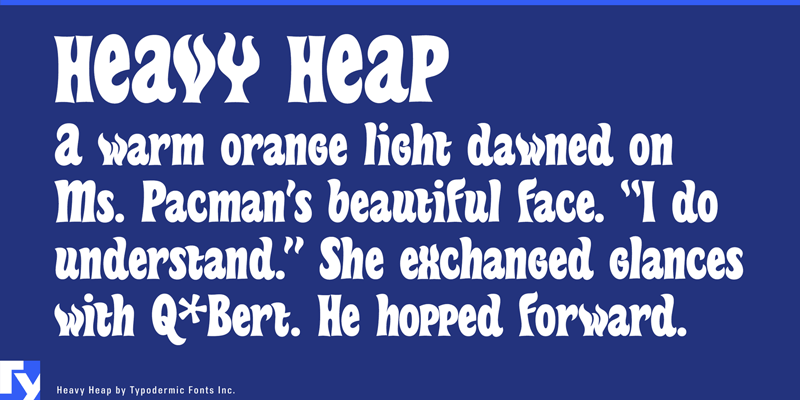
Heavy Heap is a flaming, 1960's style kustom headliner featuring lowered suspension, a chopped roof line, plenty of chrome and a full flame job. This font includes a license that allows free commercial use: sometimes referred to as a desktop license. This allows you to install the font on a computer and use it to create posters, web graphics, game graphics, t-shirts, videos, signs, logos and more. Read the license agreement for details. If you'd like to embed this font in an app, ebook, on the web or anything that's not covered by the desktop license agreement, visit the link below. You'll find distributors who offer different types of licenses or you can contact me for help. http://typodermicfonts.com/heavy-heap/ |